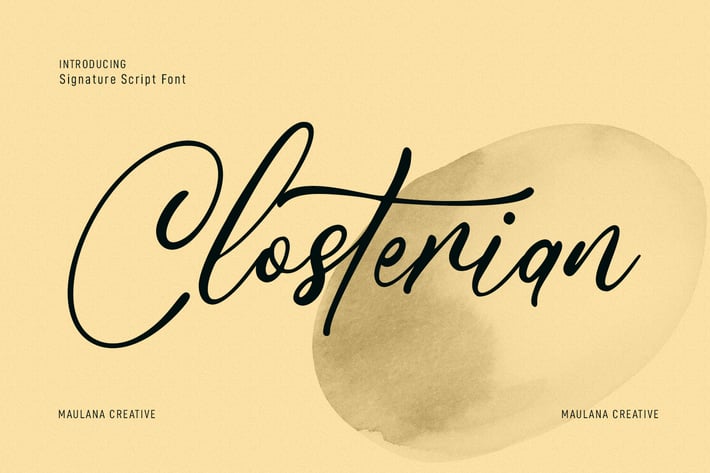
Closterian Script Font
Closterian is a modern signature script font. With regular contrast stroke, fun character. To give you an extra creative work. Closterian font support multilingual more than 100+ language. This font is good for logo design, Social media, Movie Titles, Books Titles, a short text even a long text letter and good for your secondary text font with sans or serif. Make a stunning work with Closterian font.